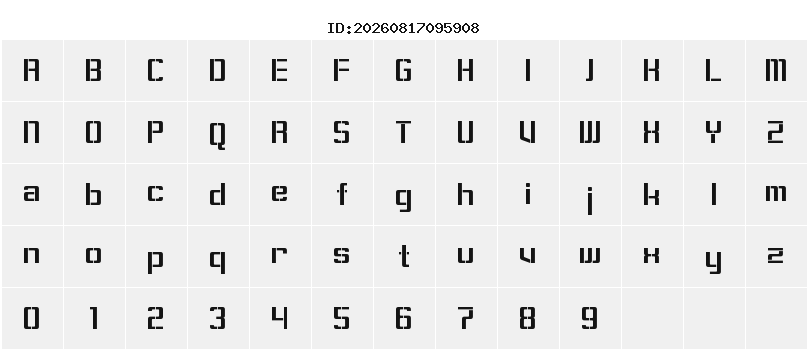
Sorenson Preview
• Font Name: Sorenson
• Full Font Name: Sorenson
• Version: Version 1.10 April 13, 2015
• Designer: Neale Davidson
• Manufacturer: Pixel Sagas
About Sorenson.otf
Sorenson.otf is a modern, elegant sans-serif font designed for ultimate readability and visual harmony. Perfect for branding, headlines, web design, and print materials.